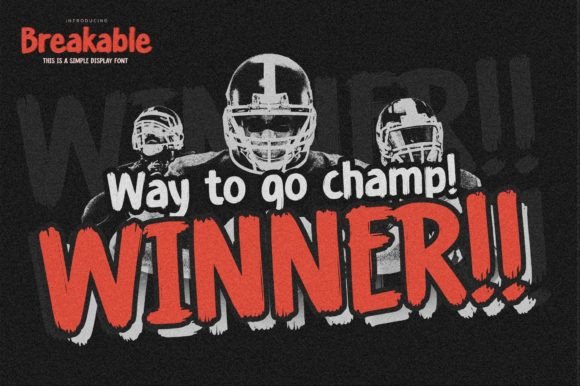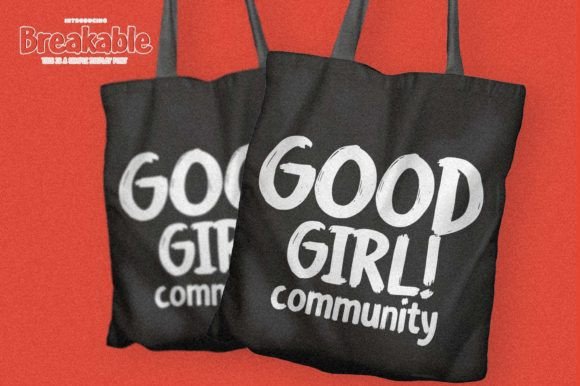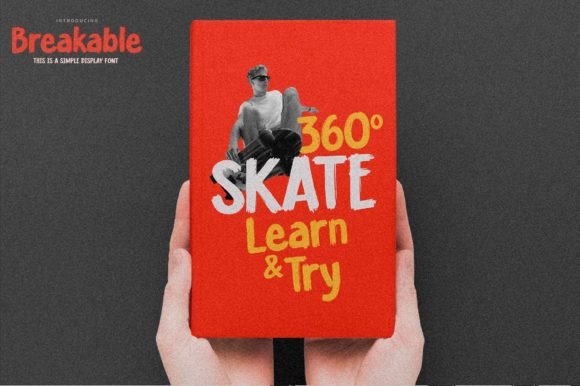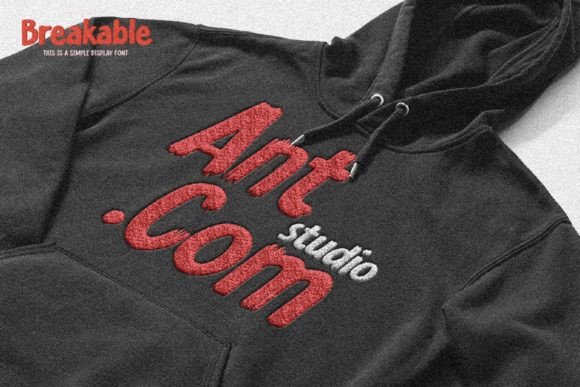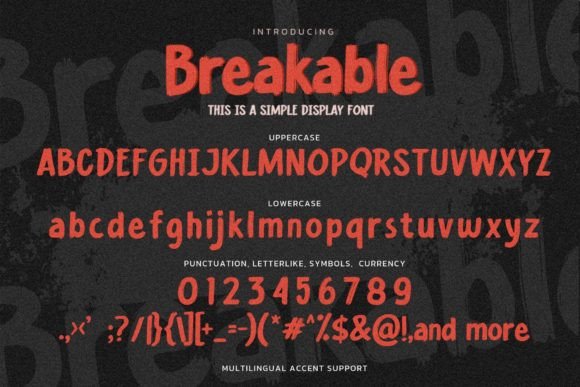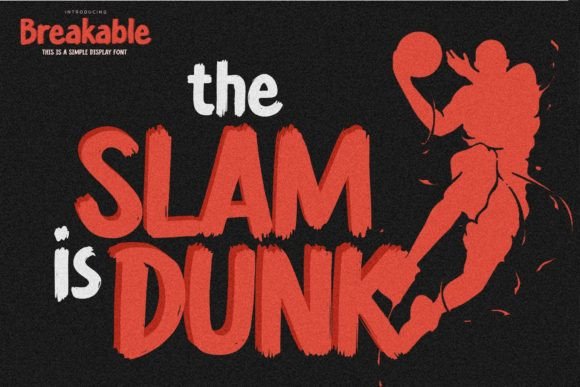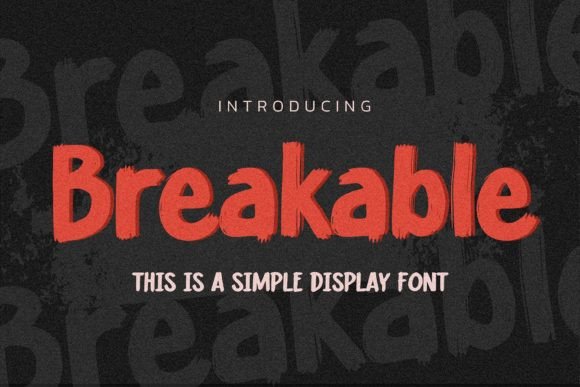
Introducing Breakable Font: A Simple yet Elegant Display Font with a Natural Touch
Are you tired of using generic fonts that lack personality and character? Look no further than Breakable Font, a simple display font with a natural feel that’s perfect for adding a touch of elegance to your design projects. This handmade font is designed to bring a beautiful, organic feel to your designs, making it ideal for a wide range of applications, from invitations and logos to book covers and craft projects.
A Font with a Personal Touch
Breakable Font is a unique and carefully crafted font that’s designed to add a personal touch to your designs. With its natural, handmade feel, this font is perfect for designers and crafters who want to create designs that stand out from the crowd. Whether you’re working on a logo, invitation, or book cover, Breakable Font is the perfect choice for adding a touch of warmth and personality to your design.
Key Features of Breakable Font
- Natural Feel: Breakable Font has a natural, organic feel that’s perfect for designs that require a personal touch.
- Handmade: This font is carefully crafted to ensure that every detail is perfect, giving it a unique and authentic feel.
- Simple yet Elegant: Breakable Font is a simple display font that’s both elegant and sophisticated, making it perfect for a wide range of design applications.
- Versatile: This font is perfect for a variety of design projects, including invitations, logos, book covers, craft projects, and more.
Breakable Font is a versatile font that’s perfect for a wide range of design projects. Here are just a few examples of how you can use this font:
- Invitations: Add a touch of elegance to your invitations with Breakable Font, perfect for weddings, birthday parties, and other special occasions.
- Logos: Create a unique and memorable logo for your business or brand with Breakable Font.
- Book Covers: Add a touch of sophistication to your book covers with Breakable Font, perfect for fiction and non-fiction books alike.
- Craft Projects: Use Breakable Font to add a personal touch to your craft projects, such as handmade cards, gift tags, and more.
Design Needs that Breakable Font Can Fulfill
Breakable Font is a versatile font that can fulfill a wide range of design needs. Here are just a few examples:
- Quotes: Use Breakable Font to create beautiful quote graphics for social media, blogs, and more.
- Sporty Theme: Add a touch of sportiness to your designs with Breakable Font, perfect for sports teams, fitness brands, and more.
- Logotype: Create a unique and memorable logotype for your business or brand with Breakable Font.
- Wordmark: Use Breakable Font to create a beautiful wordmark for your business or brand.
In conclusion, Breakable Font is a simple yet elegant display font with a natural feel that’s perfect for adding a touch of personality to your design projects. With its handmade feel and versatile design, this font is perfect for a wide range of applications, from invitations and logos to book covers and craft projects. Whether you’re a designer or crafter, Breakable Font is the perfect choice for adding a personal touch to your designs.